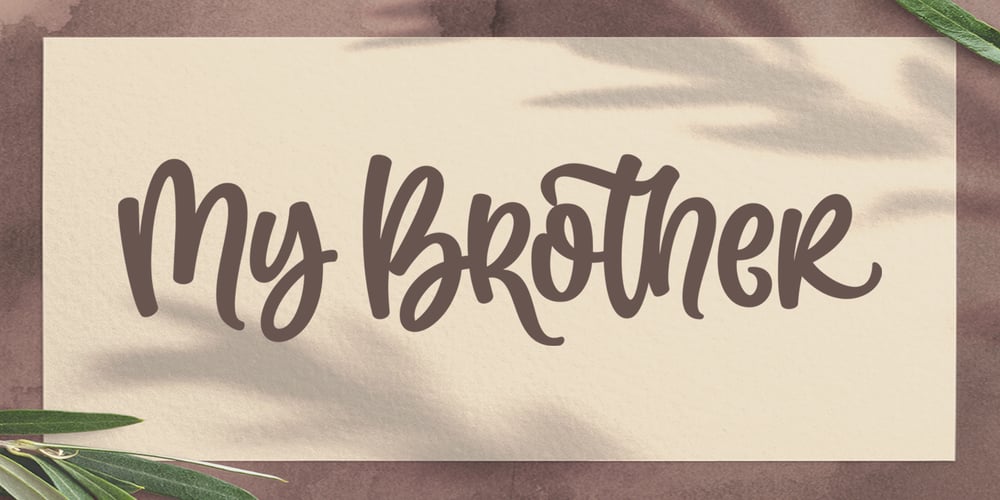
My Brother Font Family was designed by Rangga Subekti and published by Subectype. My Brother contains 1 styles and family package options. My Brother is a Modern Display font, this font come with extra alternate, ligature and swash ending. perfect for your awesome project, such as : logos, invitations, stationery, wedding designs, social media posts, advertisements, product packaging, product designs, labels, photography, watermarks, special events and much more !Thank You, Subectype Studio